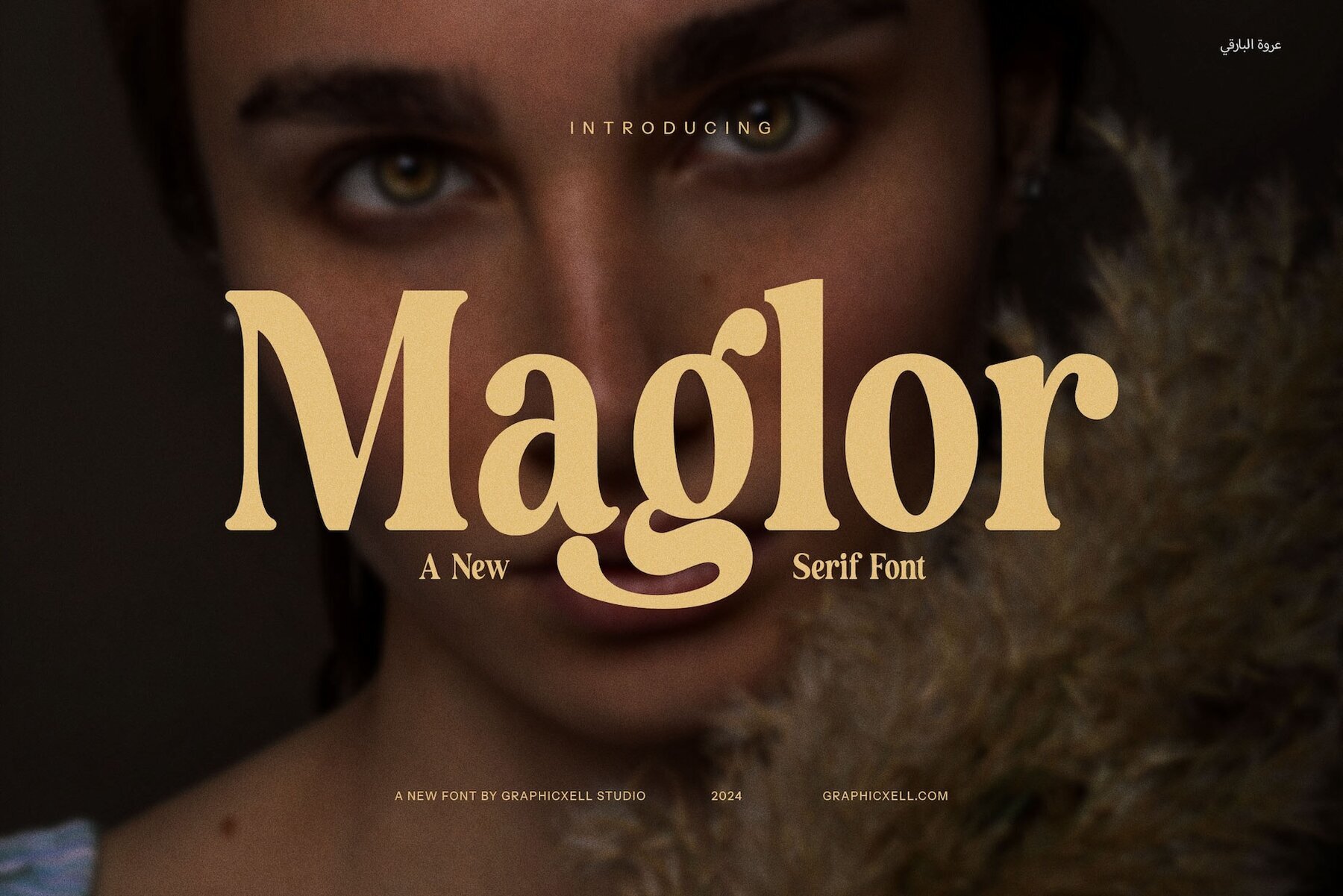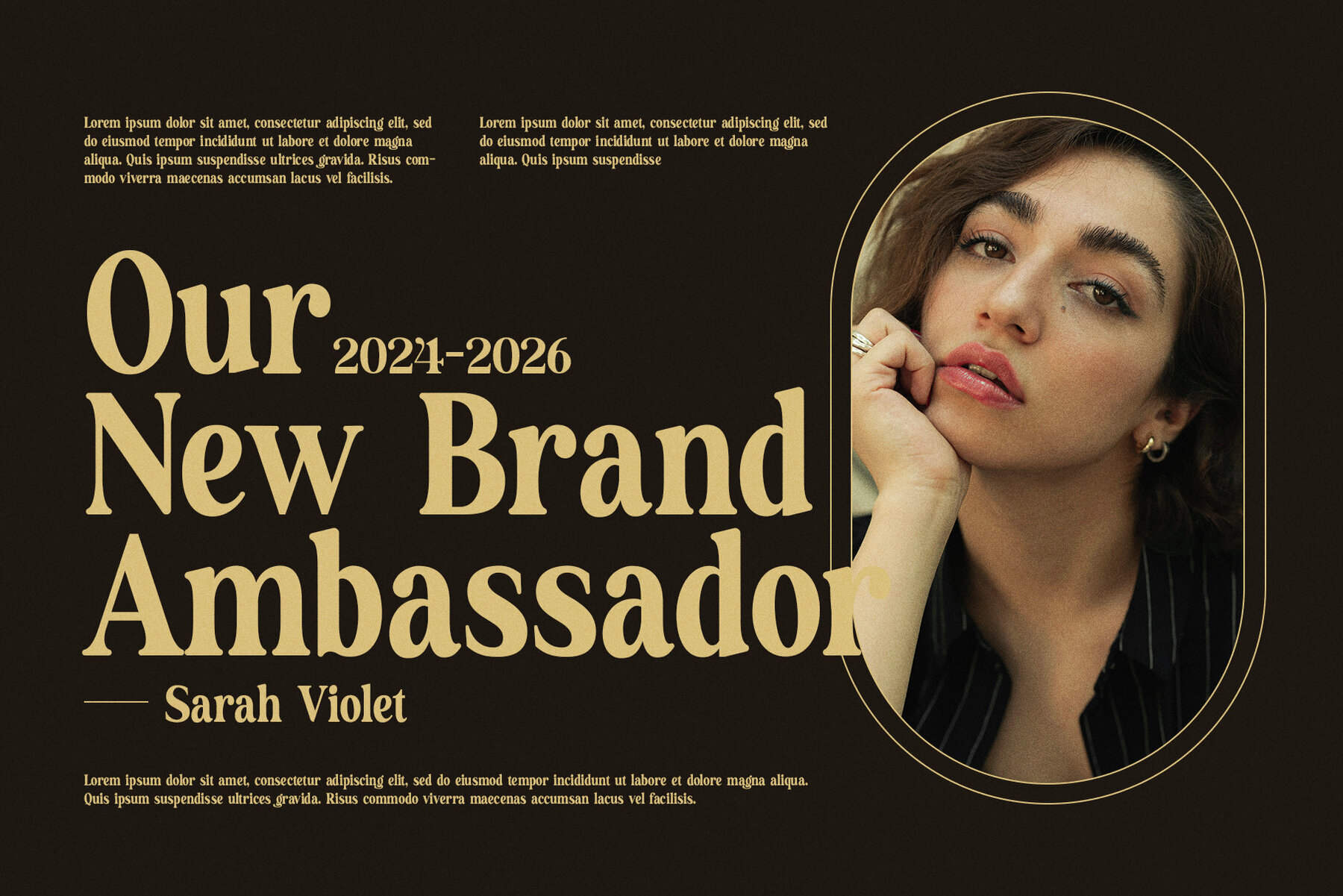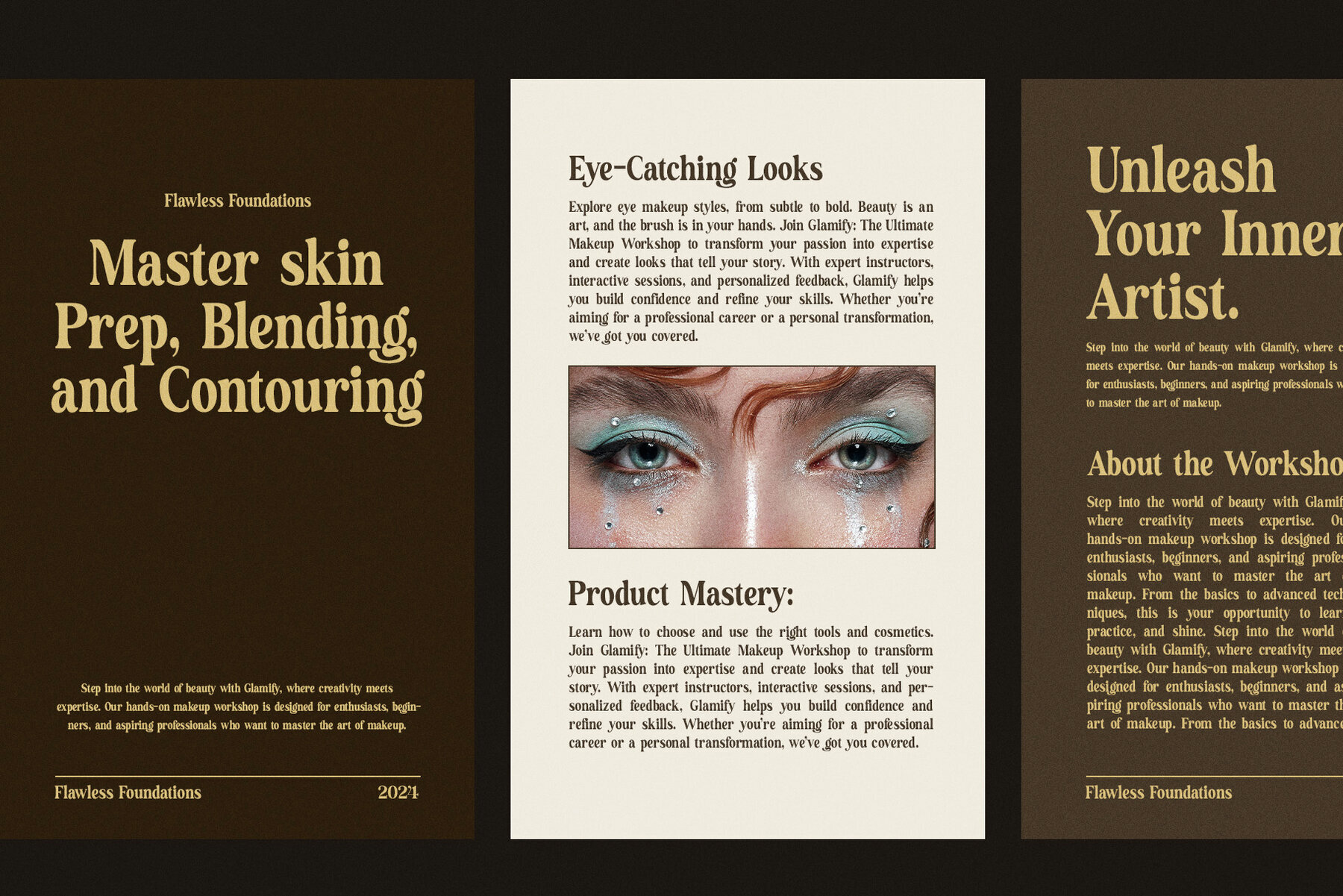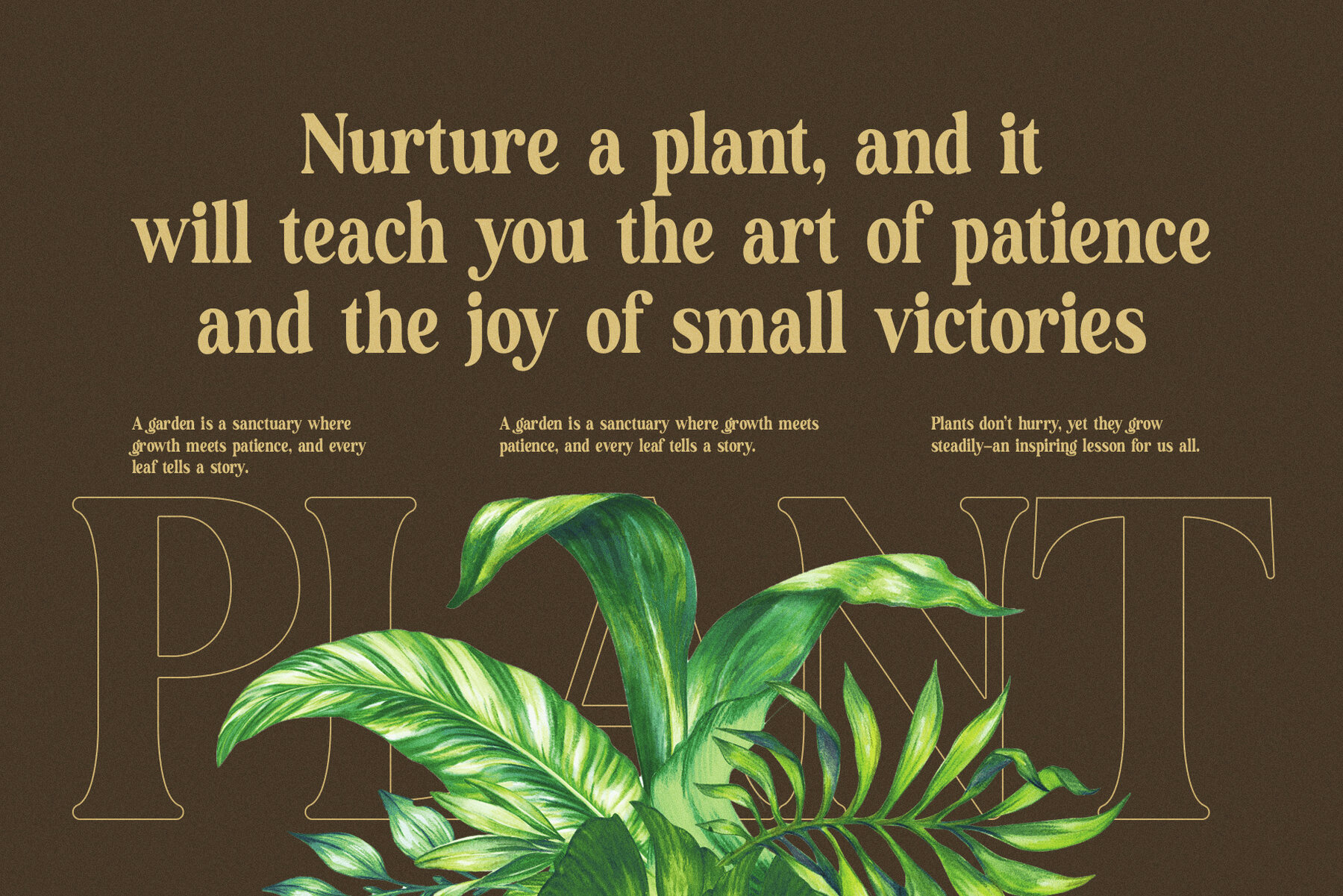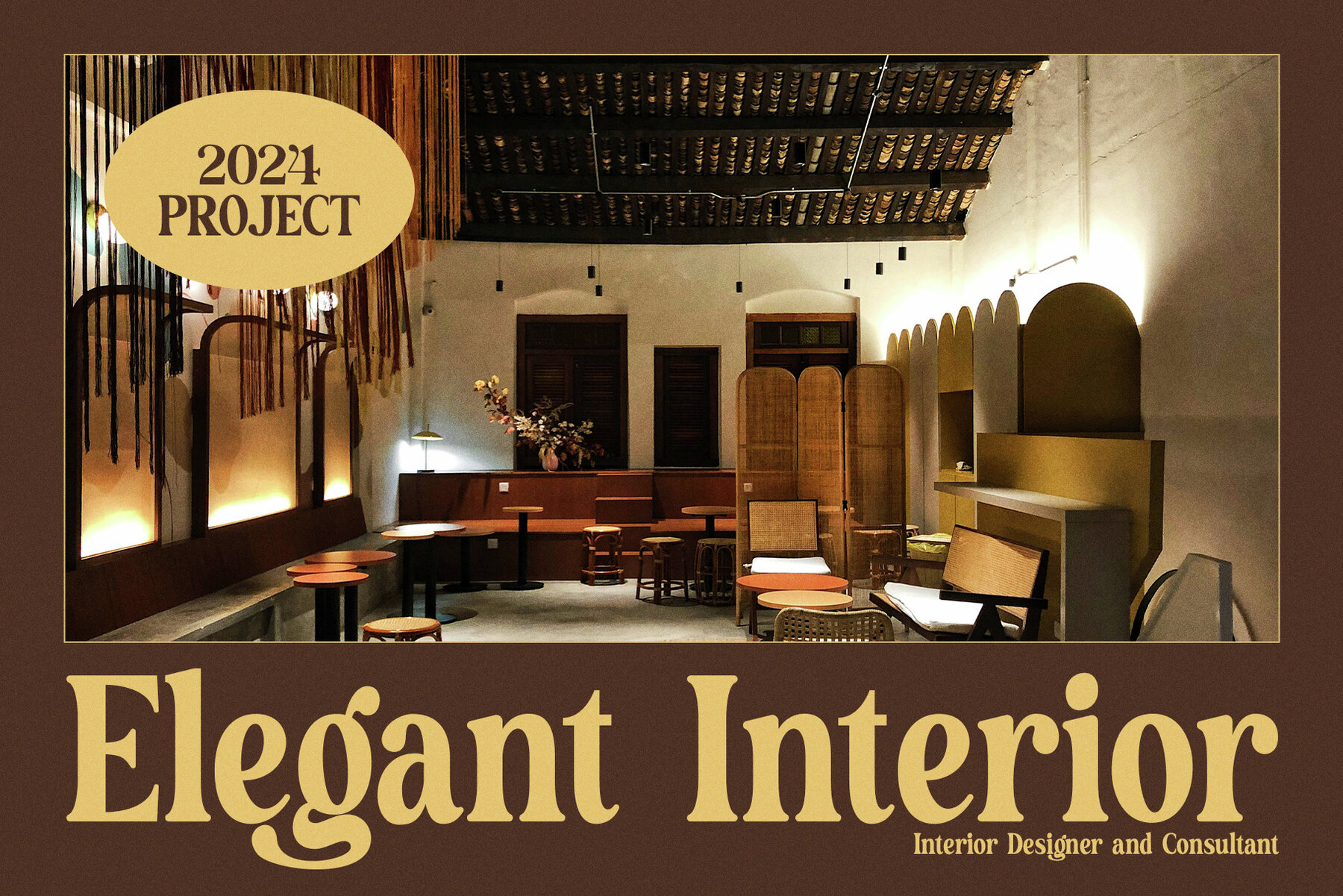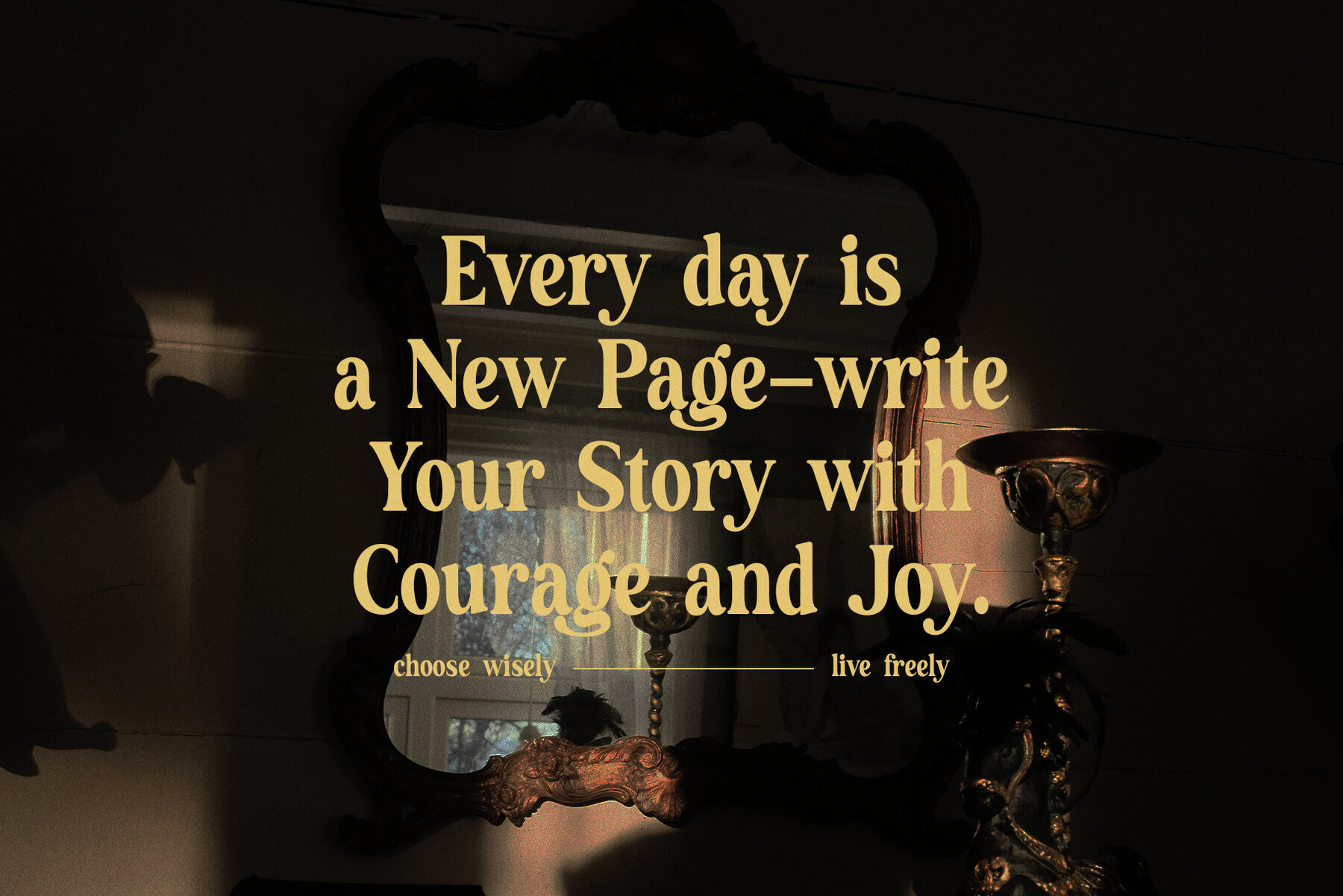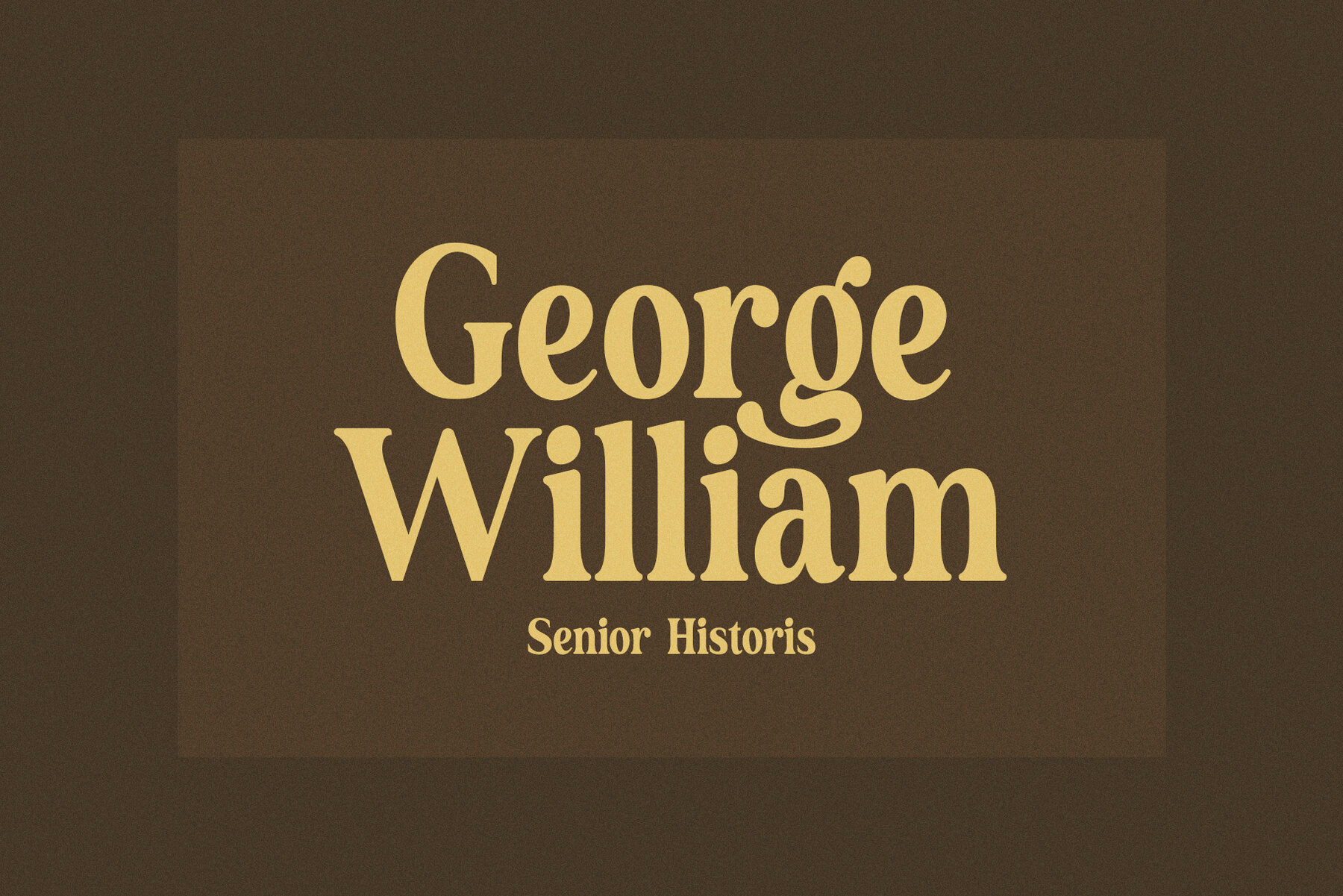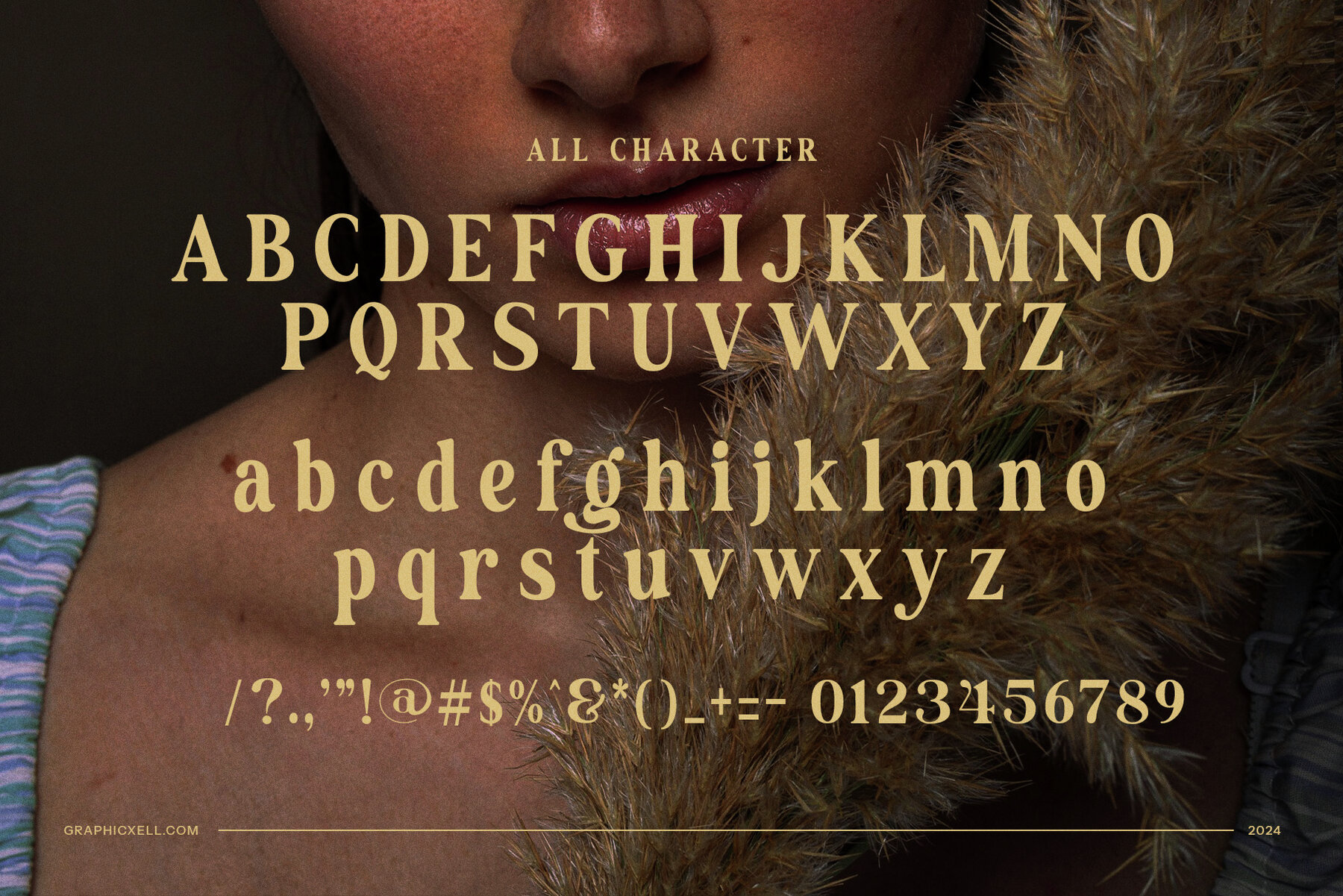
Maglor Font
Maglor
Maglor is a sophisticated serif typeface, seamlessly blending timeless elegance with modern flair. This striking serif font is perfect for a broad range of design projects, including branding, logos, websites, and advertisements. Its bold and graceful serifs enhance readability, while the balanced proportions and distinct character shapes make it suitable for both print and digital mediums. Maglor’s design makes it an excellent choice for high-end brands, boutique displays, food promotions, and any project aiming to convey class and style.
Maglor stands out for its versatility and functionality. It offers an exceptional user experience across sizes, making it ideal for creating memorable logos, chic web designs, elegant stationery, and standout advertisements. The font's unique aesthetic ensures it shines in a crowded design space while remaining approachable and easy to read. Whether crafting a modern brand identity or a classic editorial spread, Maglor delivers a touch of class and refinement that resonates with your audience. This elegant serif font is the ultimate choice for projects demanding both beauty and functionality.